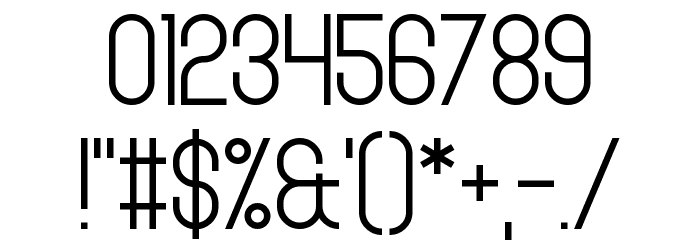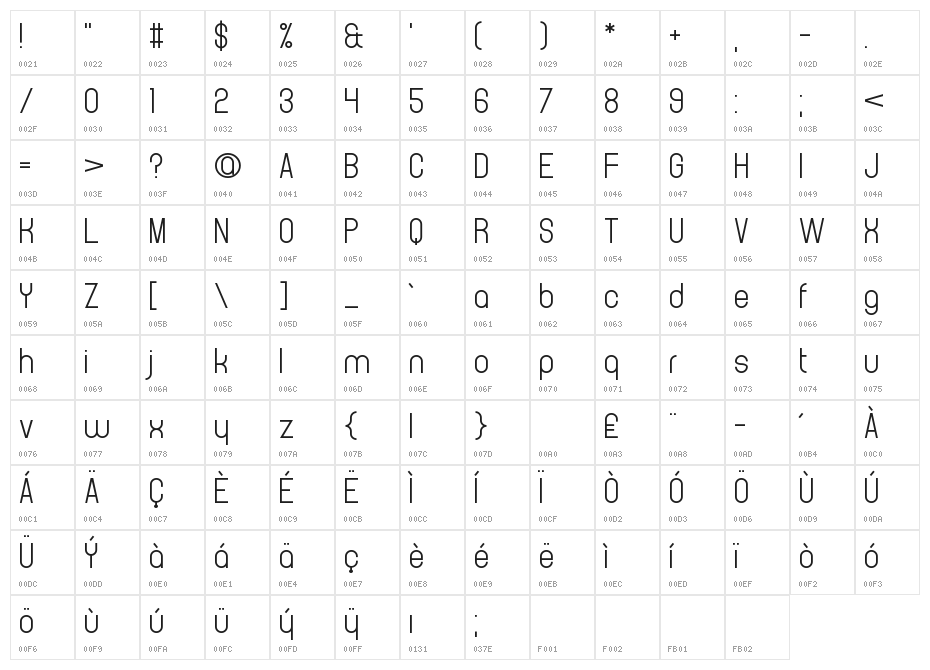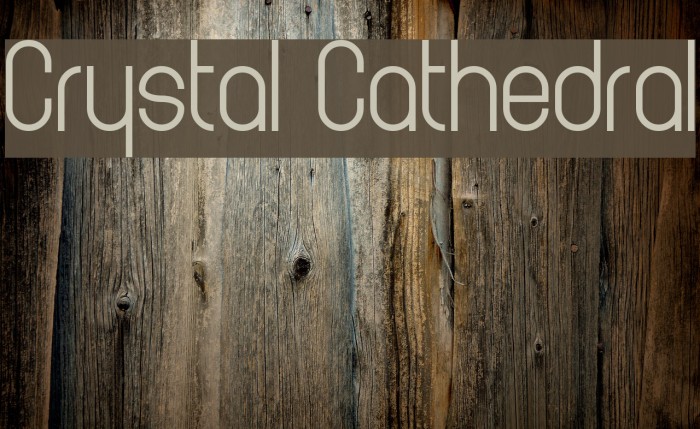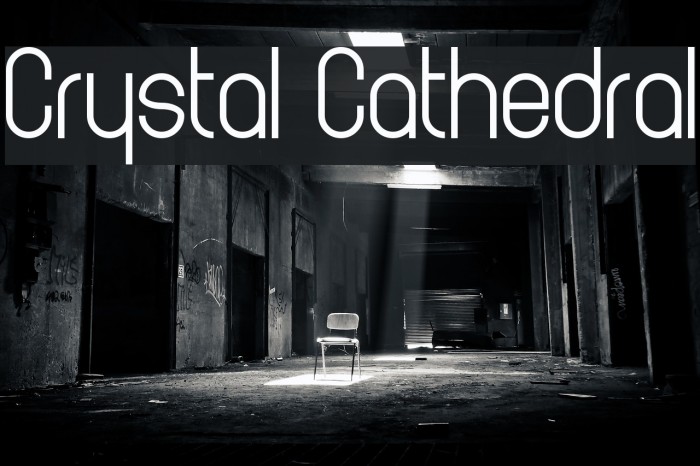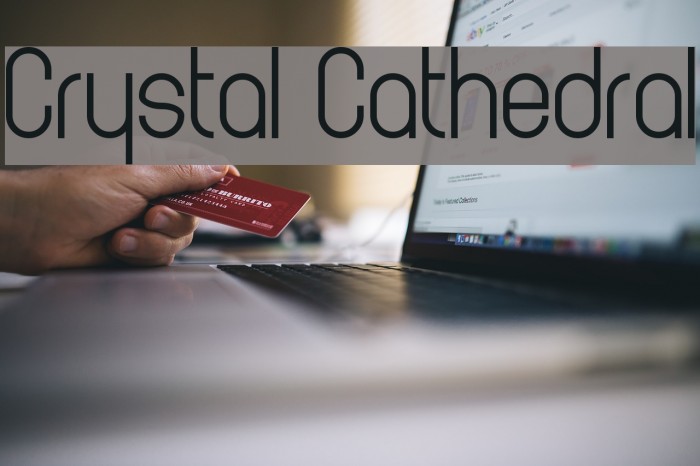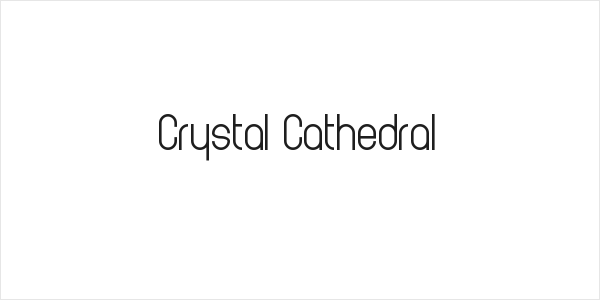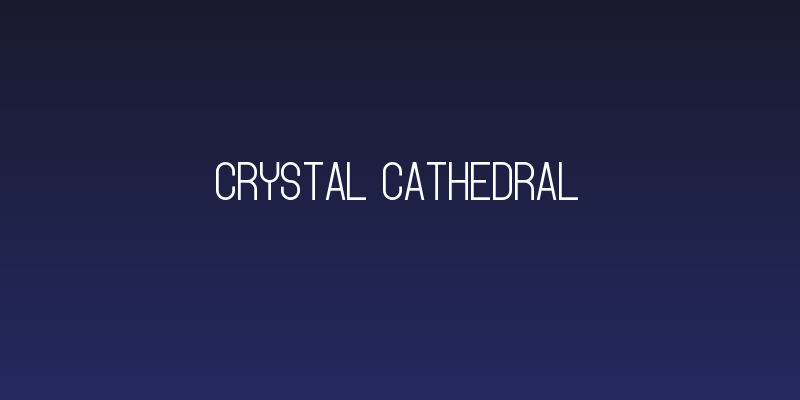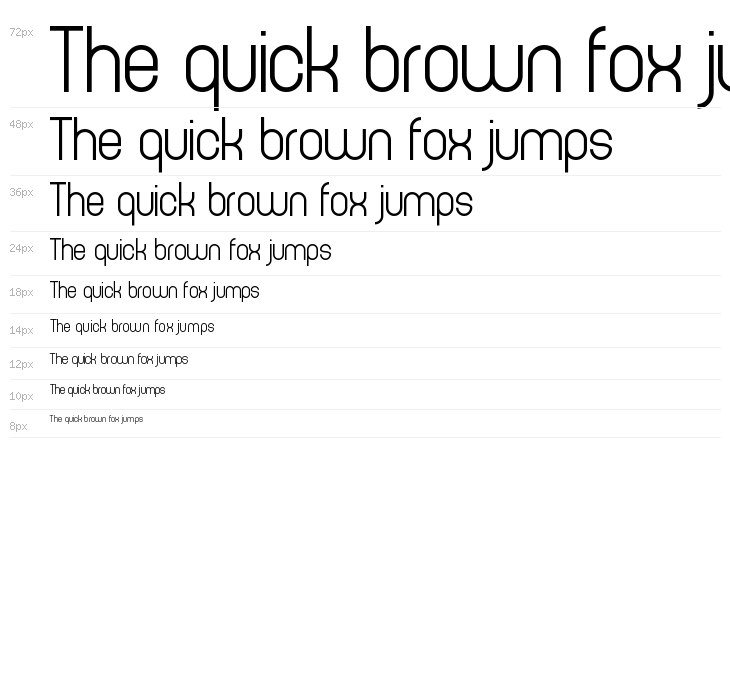
Crystal Cathedral Font
Crystal Cathedral Description
This font features a modern and geometric design with clean, straight lines and a uniform stroke width. The characters are tall and narrow, giving a condensed appearance. The uppercase letters are particularly striking, with a consistent height and minimalistic style. The lowercase letters maintain the same geometric aesthetic, ensuring readability while preserving the font's unique character. The numerals and special characters are designed to match the overall style, providing a cohesive look across all elements. This font is ideal for projects that require a contemporary and sleek appearance.